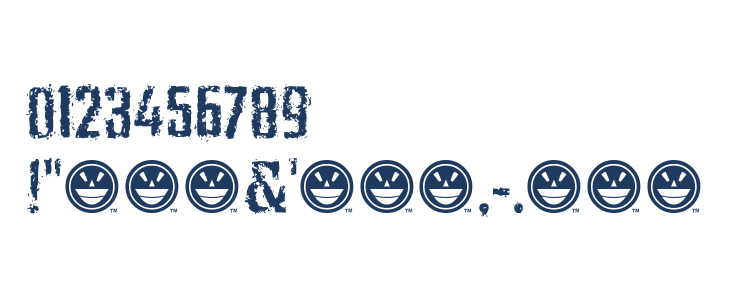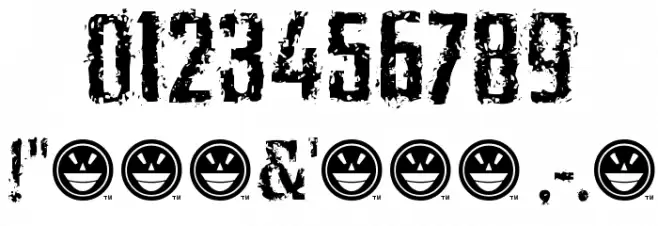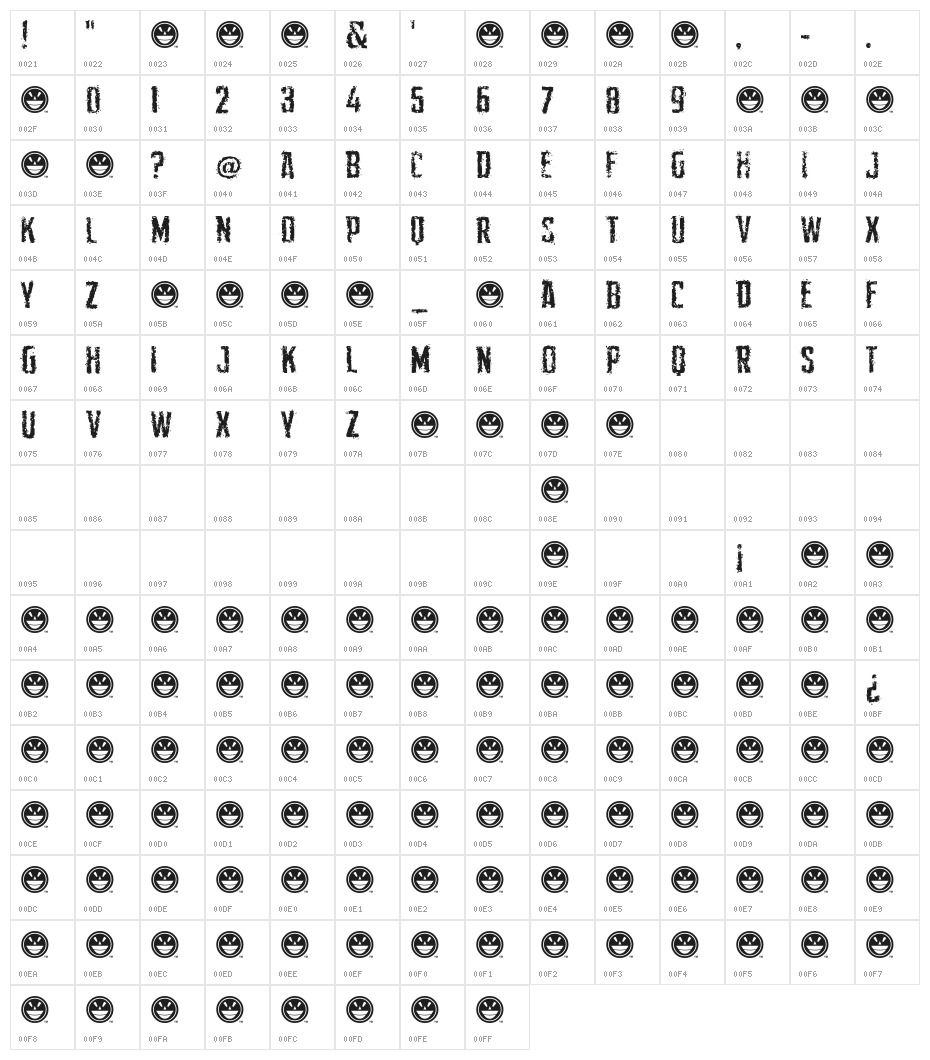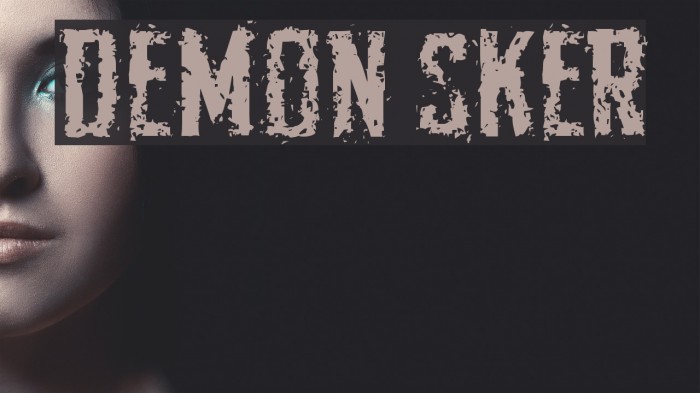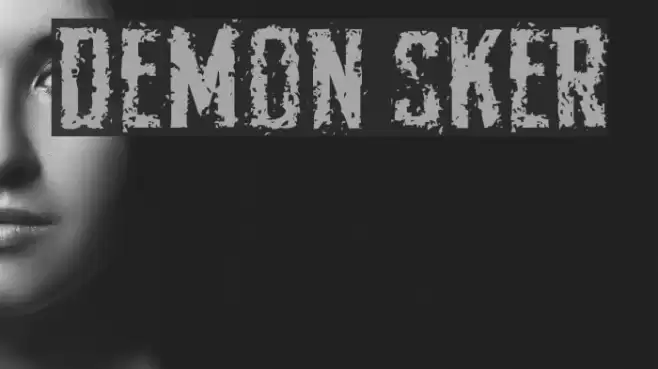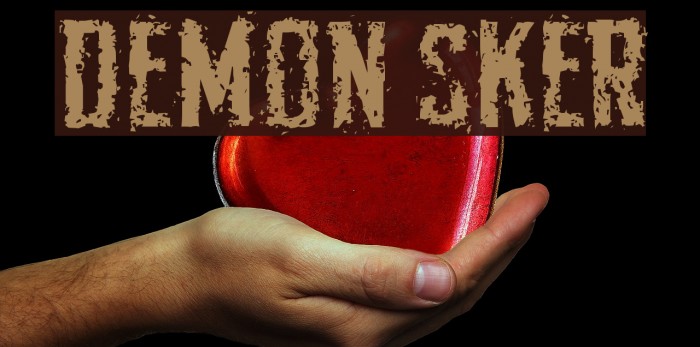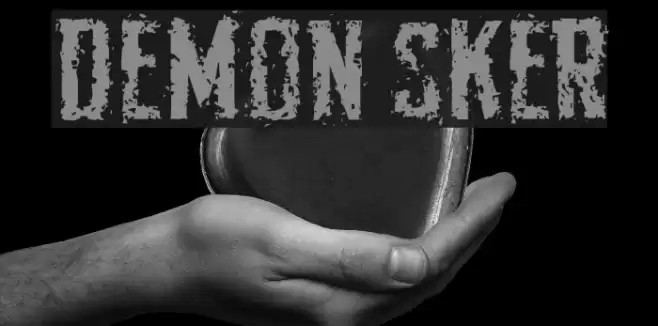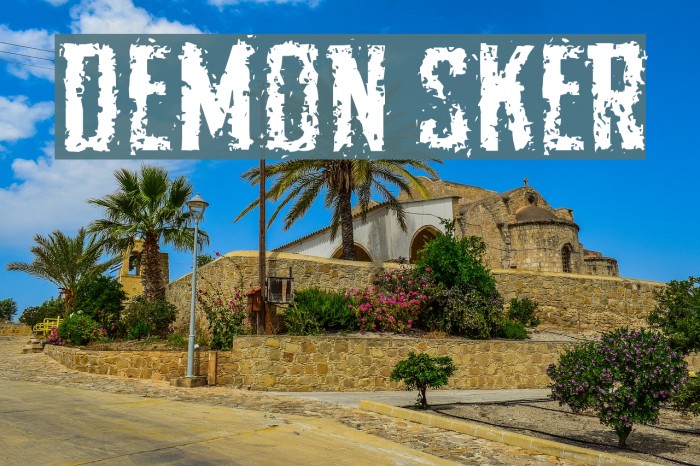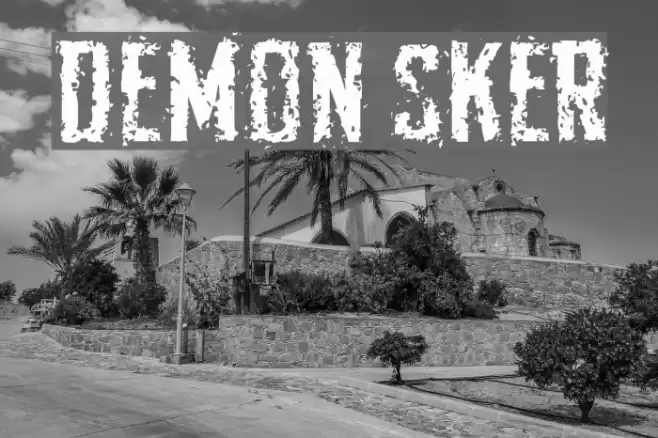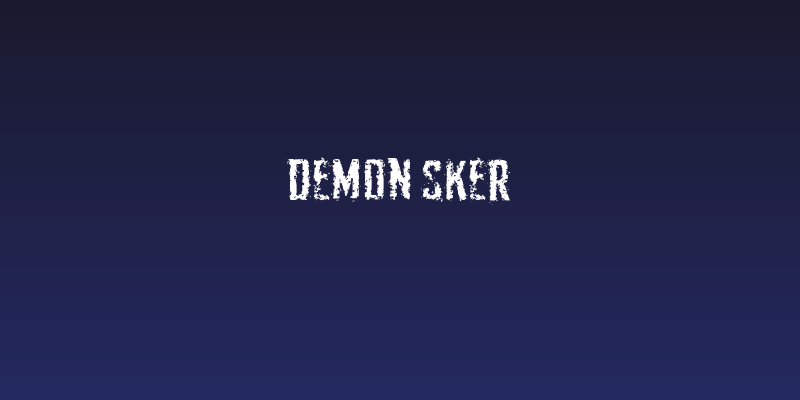
Demon Sker Font
Demon Sker Description
This font features a distressed, grunge style with rough edges and a textured appearance, giving it a rugged and edgy look. The uppercase and lowercase letters maintain a consistent height, while the numerals and special characters follow the same distressed aesthetic. The font's unique design makes it stand out, with each character appearing as if it has been weathered or eroded over time. This adds a dynamic and bold visual impact, perfect for projects that require a strong, unconventional typeface.
| Overall Style | Grunge, Edgy |
| Proposed Projects | Ideal for music album covers, horror movie posters, edgy branding, and streetwear designs. |